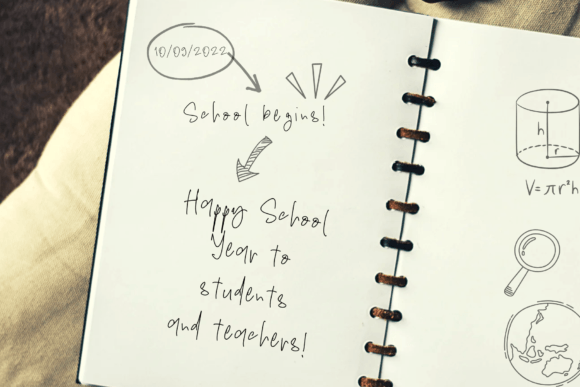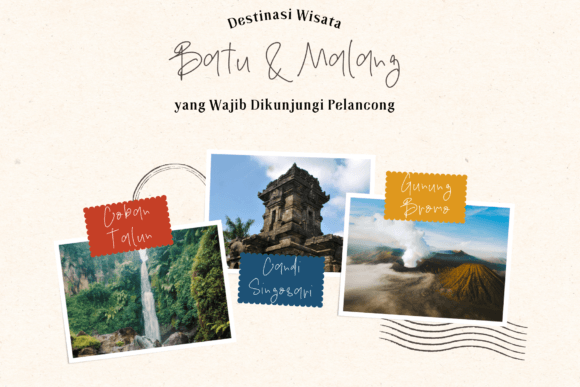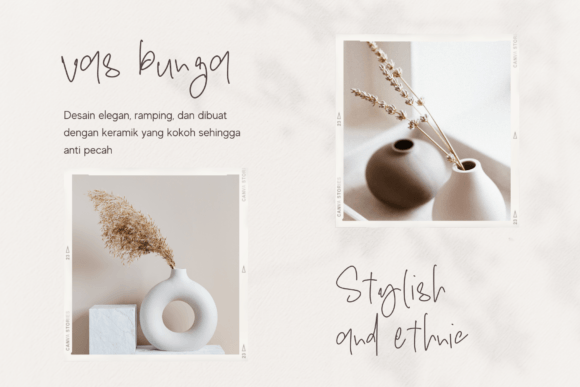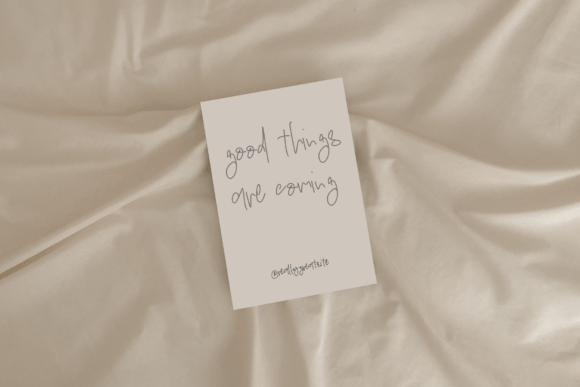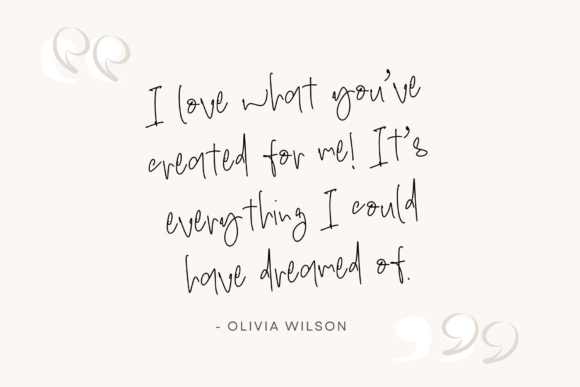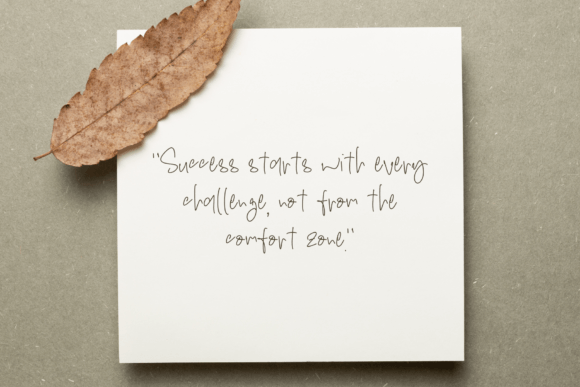
The Art of Handwritten Charm: Unleashing the Magic of Brushy Handwriting Font
Remember the moment when you first picked up a paintbrush and let your creativity flow? The feeling of freedom, the joy of experimentation, and the thrill of watching your artwork come to life? That’s exactly what the Brushy Handwriting Font aims to capture – the essence of artistic expression, distilled into a digital format.
Designed to evoke the organic charm of hand-drawn illustrations, this font is perfect for designers seeking to add a touch of personality to their projects. Whether it’s a youth-themed campaign, a cheerful visual concept, or a design that yearns for a natural, artistic feel, the Brushy Handwriting Font is an invaluable addition to your creative toolkit.
With its effortless charisma and enchanting appeal, this font is sure to breathe life into your designs, making them speak in an enticingly artistic script. So, let your imagination run wild and discover the magic of Brushy Handwriting Font for yourself.
Brushy Handwriting Font Key Features
- Unique Characteristics: This font features a unique, hand-drawn style with subtle imperfections, giving it a personal and artistic touch.
Designer Review: Brushy Handwriting Font
Overall, I’m impressed with the Brushy Handwriting Font. The design has a unique, hand-written feel that’s perfect for adding a personal touch to designs.
- ✨ The font’s imperfections and inconsistencies make it feel authentic and human.
- ✨ The font’s expressive quality makes it perfect for use in titles, headings, and other prominent design elements.
- ✨ The font is highly customizable, allowing designers to adjust the size, color, and style to fit their needs.
- ⚠️ The font may not be suitable for use in body text, as it can be difficult to read at smaller font sizes.
- ⚠️ The font’s unique style may not be to everyone’s taste, so it’s essential to test it with your target audience before using it in a design.
Overall, I think the Brushy Handwriting Font is a great addition to any designer’s toolkit. With its unique design and high level of customization, it’s perfect for adding a personal touch to designs. Just be sure to use it judiciously and test it thoroughly before using it in a design.
Tips for Getting the Most Out of Brushy Handwriting Font
For optimal results, use the Brushy Handwriting Font for headings and titles, as it adds a personal touch to your content. You can also experiment with different font sizes and colors to create a visually appealing effect.
The Brushy Handwriting Font is ideal for:
– Personalized invitations and greeting cards
– Blog and article titles
Alternatives to Brushy Handwriting Font for Designers
Pacifico is a beautiful, elegant handwriting font that works well for invitations, wedding stationery, and other formal designs. It features a flowing, cursive script that adds a touch of sophistication to any project.
Compared to Brushy Handwriting Font, Pacifico has a more refined and polished look, making it suitable for formal designs. While Brushy Handwriting Font has a more casual, rough-around-the-edges feel, Pacifico is more refined and elegant.